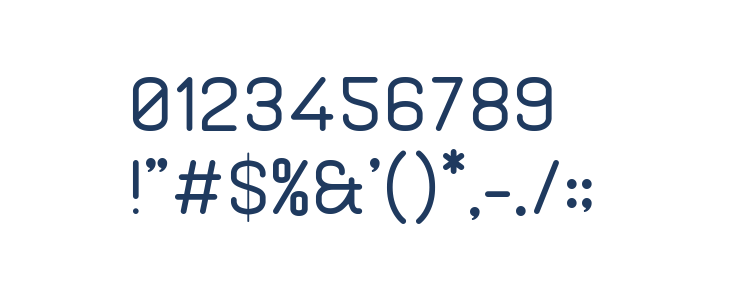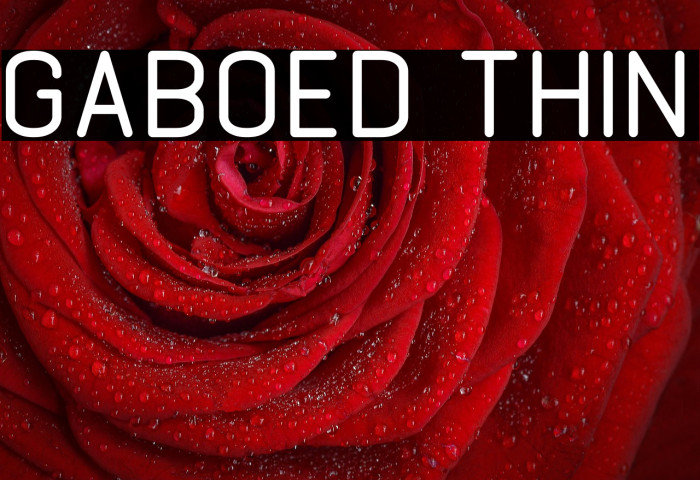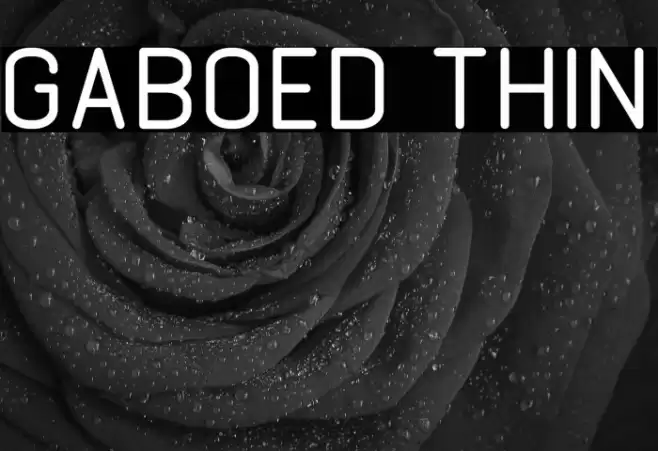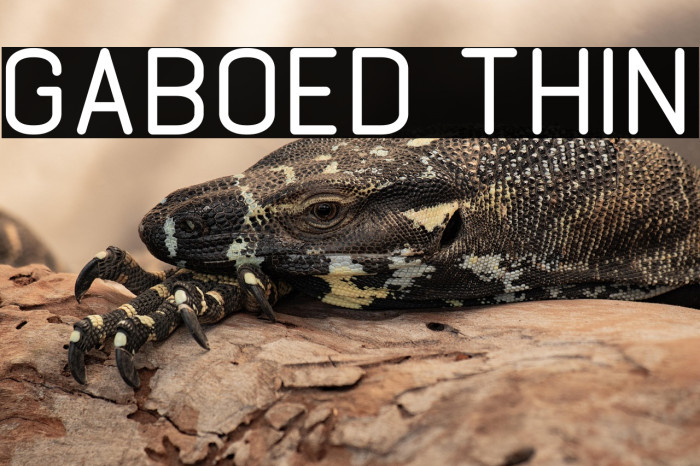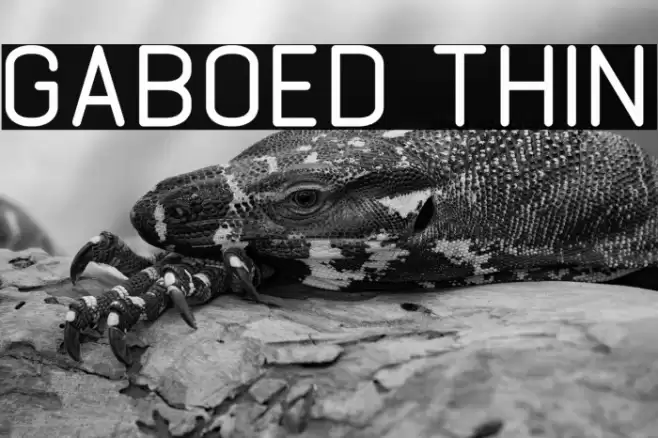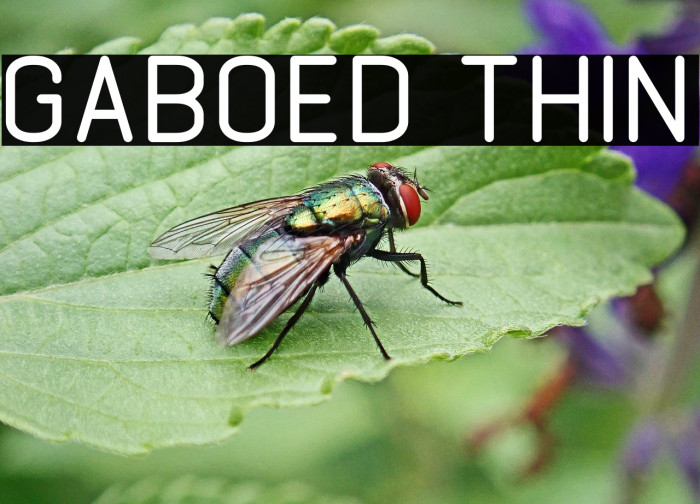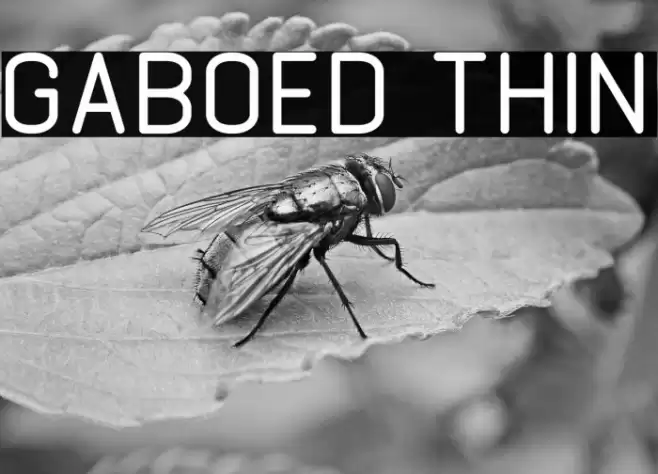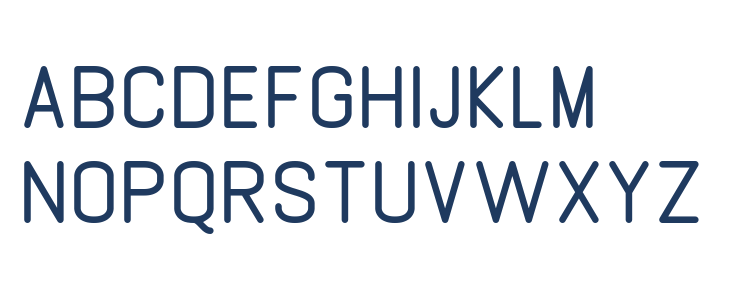
GABOED thin Font
GABOED thin Description
This font features a clean, modern sans-serif design with a thin weight, offering a sleek and contemporary appearance. The characters are evenly spaced with a slight geometric influence, providing a balanced and harmonious look. The uppercase and lowercase letters maintain a consistent style, with rounded edges that add a touch of softness to the overall sharpness of the design. The numerals and special characters are crafted with the same attention to detail, ensuring uniformity across all elements. This font is versatile and can be used in various design contexts.
| Proposed Projects | Ideal for branding, digital interfaces, minimalist posters, and editorial design. |